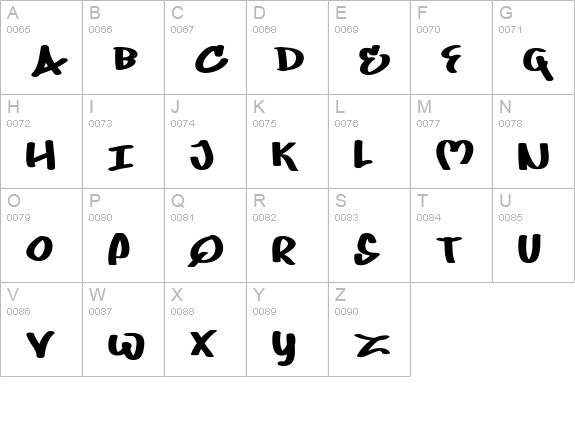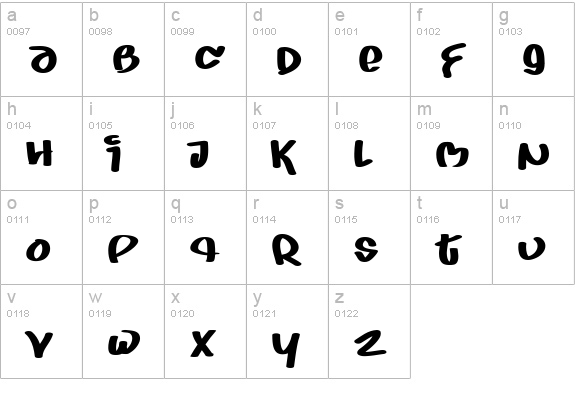
Juice font is a stunning display typeface that effortlessly captures the essence of youthful energy and vibrant creativity. Its unique design combines bold, rounded letterforms with playful curves, exuding a refreshing and delightful charm. This font is perfect for those seeking to add a touch of fun and liveliness to their projects, whether it be designing eye-catching logos, crafting captivating headlines, or creating engaging social media graphics. With its dynamic and energetic nature, Juice font will instantly inject a burst of excitement into any design. One of the best things about Juice font is that it is freely available to download at FontsMarket.com. This means that designers, artists, and creatives from all walks of life can easily access and utilize this fantastic typeface in their work. Whether you are a professional designer or a passionate hobbyist, the availability of Juice font for free ensures that creativity knows no boundaries. So why wait? Discover the refreshing allure of Juice font and let your designs come to life with its lively and exuberant personality. Download it today at FontsMarket.com and unlock a world of endless creative possibilities.